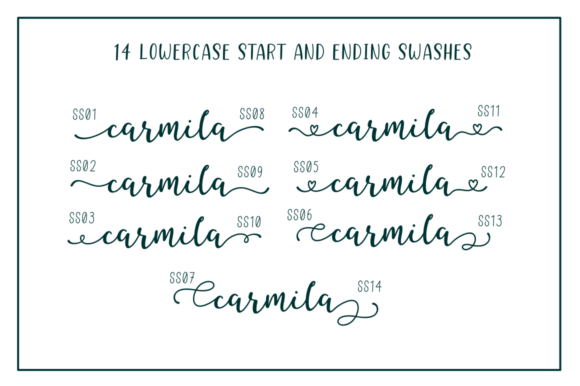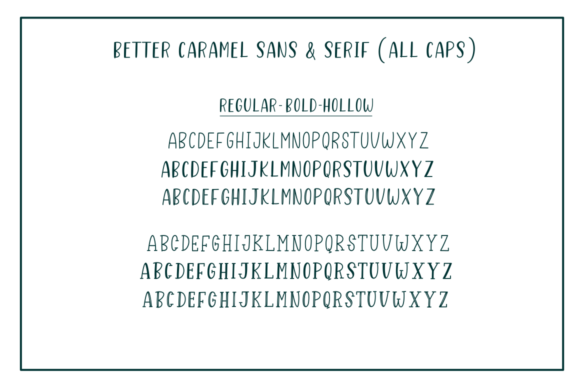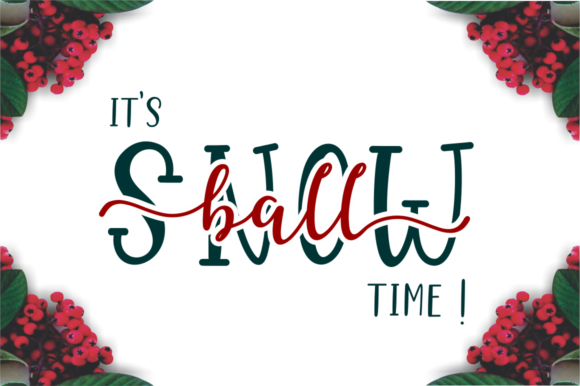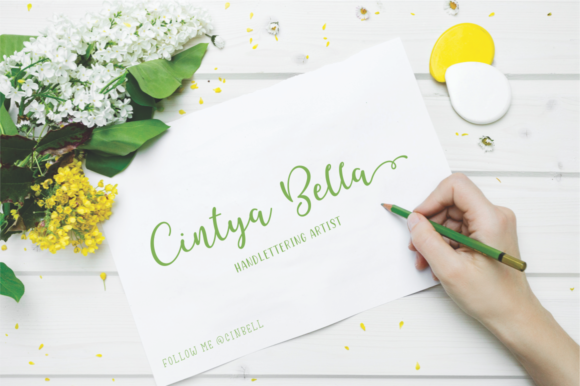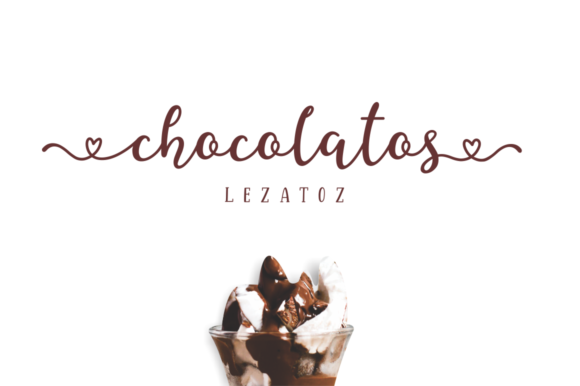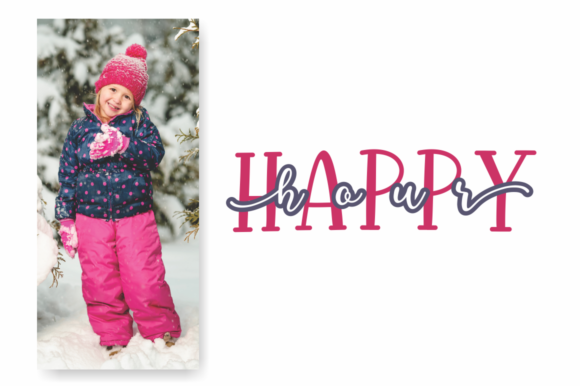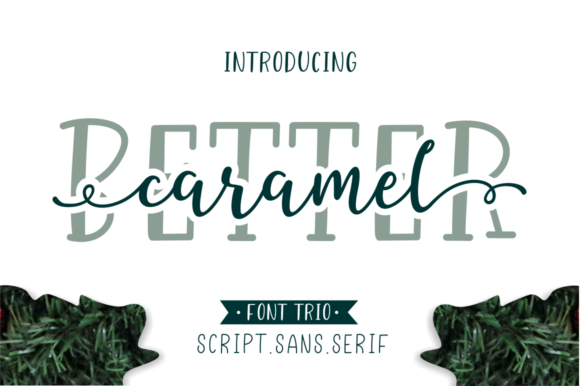
Better Caramel Trio Font: Elevate Your Designs with This Stunning Font Collection
Are you tired of using the same old fonts in your designs? Look no further! The Better Caramel Trio Font is here to take your creative projects to the next level. This beautiful font trio is a game-changer for designers and crafters, offering a versatile and stylish solution for all your design needs.
What is the Better Caramel Trio Font?
The Better Caramel Trio Font is a carefully curated collection of three complementary fonts, designed to work seamlessly together. With a total of 7 styles to choose from, this font trio offers endless possibilities for creating unique and visually stunning designs. Whether you’re working on a branding project, crafting a social media graphic, or designing a beautiful wedding invitation, the Better Caramel Trio Font is the perfect choice.
Key Features of the Better Caramel Trio Font
- 7 Styles to Choose From: The Better Caramel Trio Font comes with 7 styles, including regular, bold, italic, and more. This allows you to experiment with different combinations and create a look that’s all your own.
- Perfectly Paired Fonts: The three fonts in this trio are carefully designed to work together in harmony, making it easy to create cohesive and visually appealing designs.
- Unique Design Opportunities: With the Better Caramel Trio Font, you’ll have the freedom to create something new and exciting every time you use it. The versatility of this font trio ensures that your designs will always stand out.
Why Choose the Better Caramel Trio Font?
So, what sets the Better Caramel Trio Font apart from other font collections? Here are just a few reasons why designers and crafters love this font:
- High-Quality Design: The Better Caramel Trio Font is designed with precision and attention to detail, ensuring a crisp and clean look that’s perfect for both digital and print applications.
- Time-Saving: With the Better Caramel Trio Font, you can create stunning designs in a fraction of the time. The versatility of this font trio means you can experiment with different combinations and find the perfect look in no time.
How to Use the Better Caramel Trio Font
Ready to get started with the Better Caramel Trio Font? Here are a few tips to help you make the most of this amazing font collection:
- Experiment with Different Combinations: Don’t be afraid to try out different font combinations to find the perfect look for your design. The Better Caramel Trio Font offers endless possibilities, so have fun experimenting!
- Use it for Branding Projects: The Better Caramel Trio Font is perfect for branding projects, from logos to business cards. The versatility of this font trio ensures that your brand will stand out.
- Pair it with Other Design Elements: To take your designs to the next level, try pairing the Better Caramel Trio Font with other design elements, such as illustrations or textures.
The Better Caramel is a beautiful font trio. It comes with 7 styles which can be paired together perfectly! It gives you the opportunity to create unique designs, every time you use it.